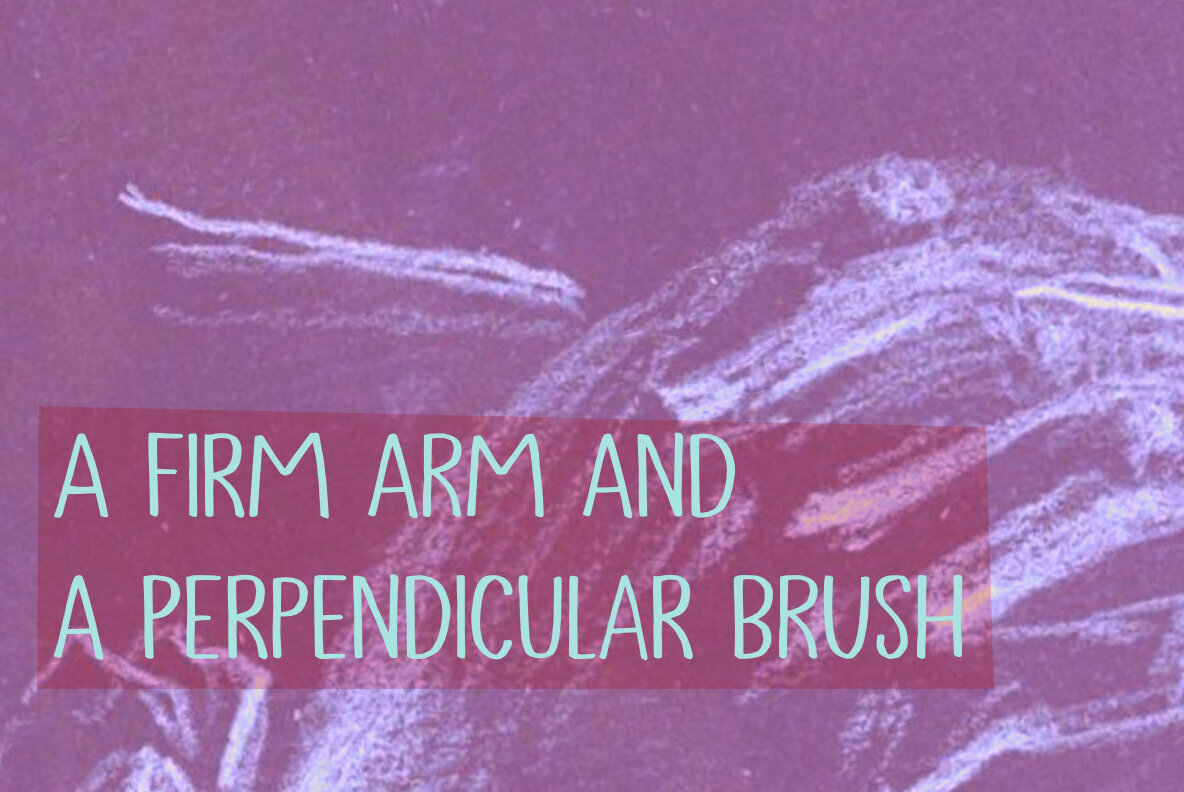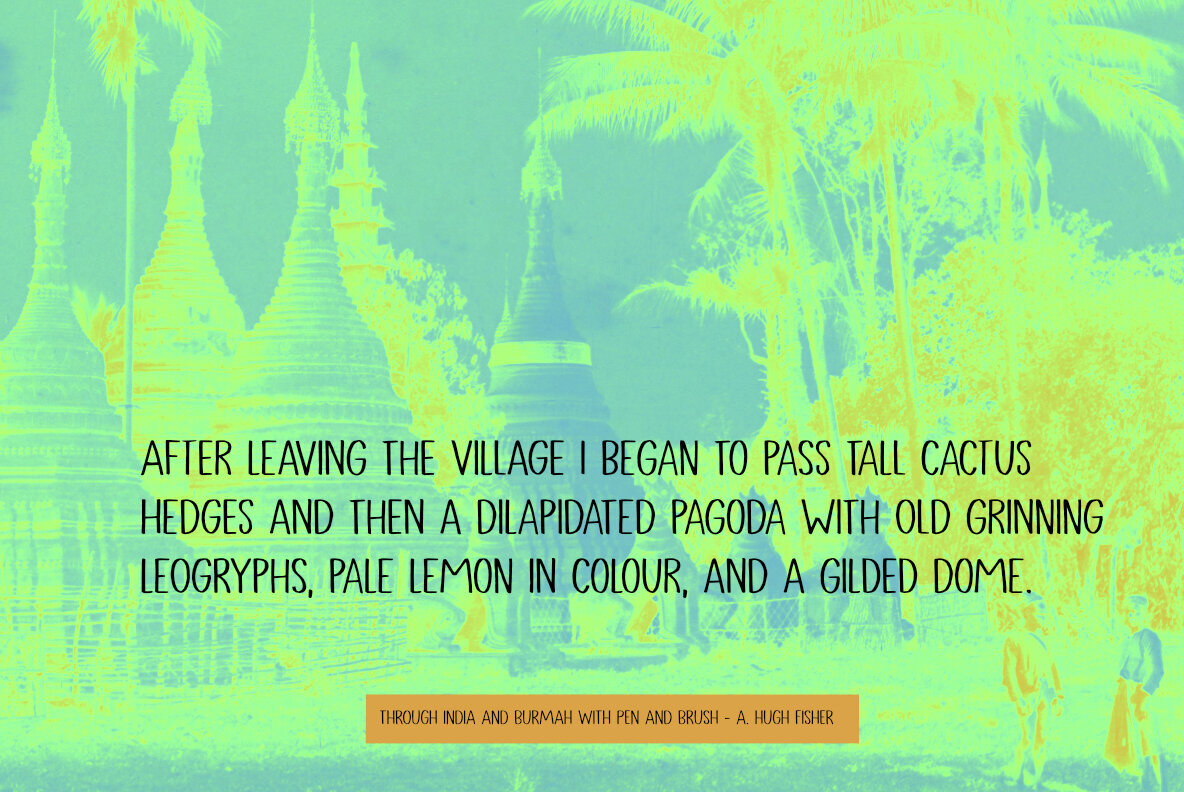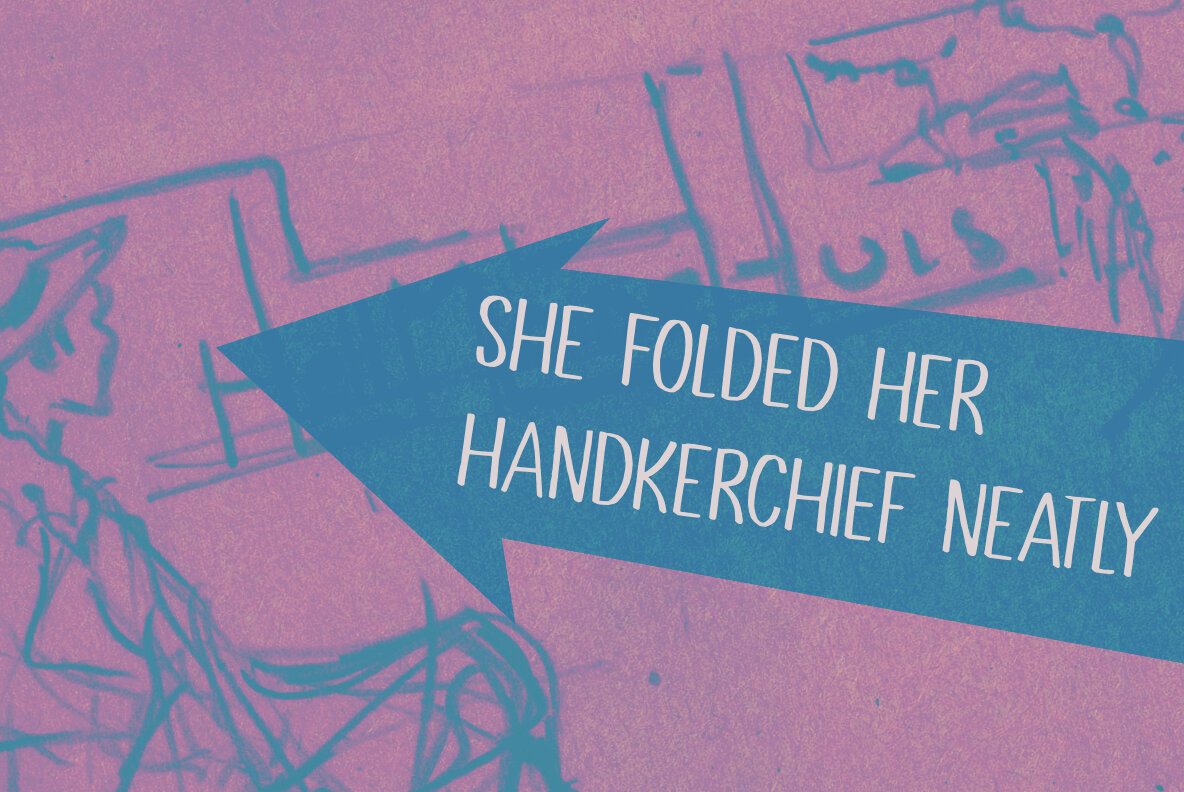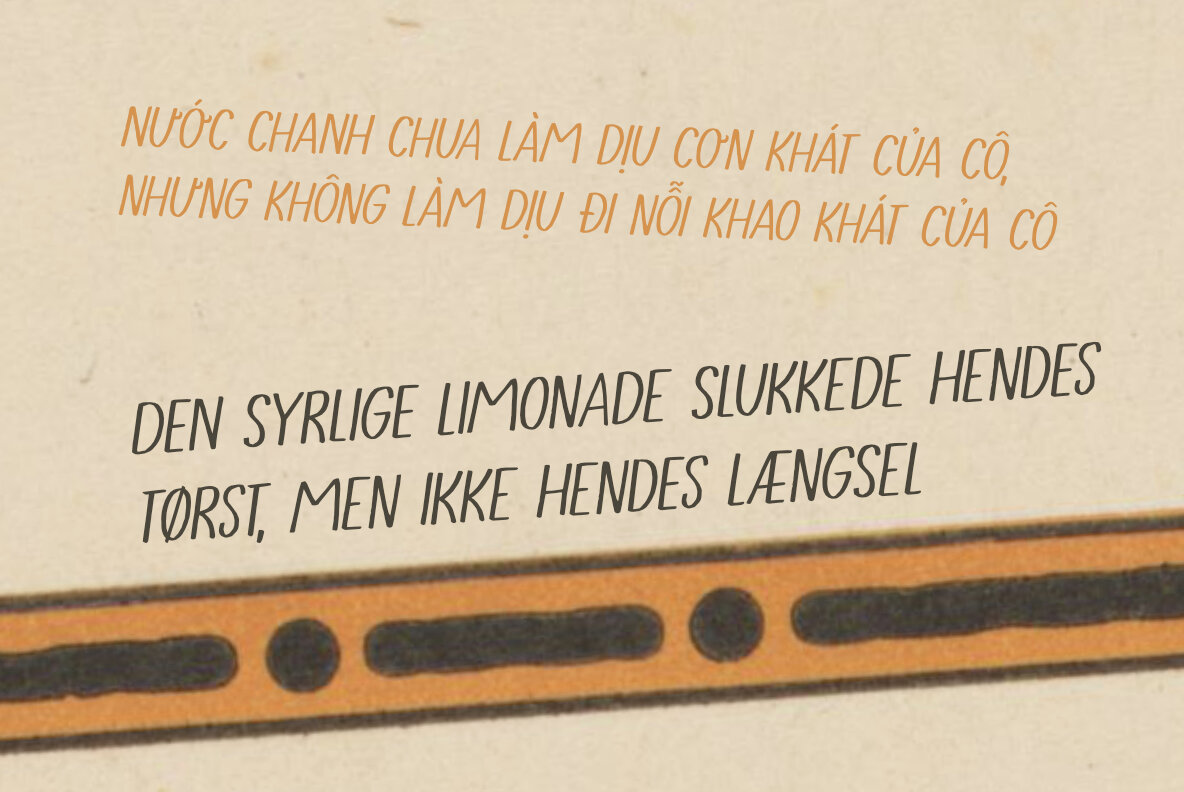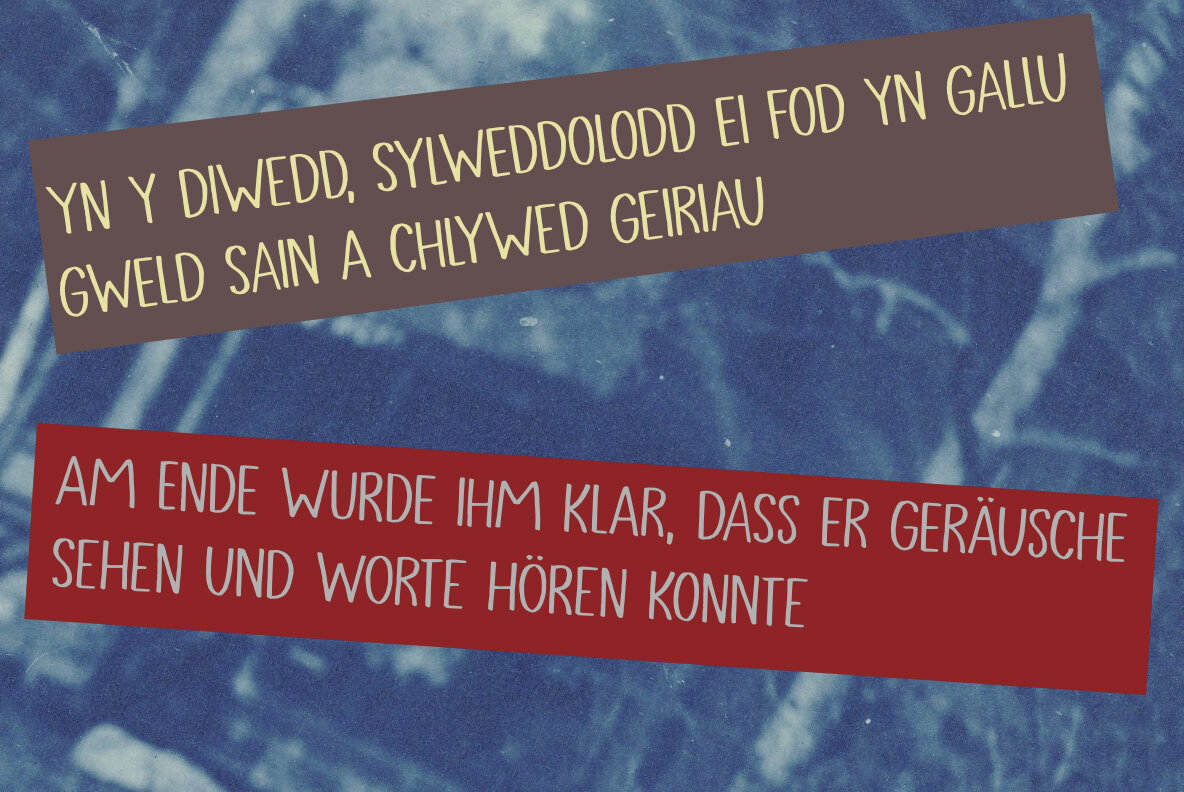
Brush Concept Font
A long time ago, I bought a pack of Japanese brush-pens. I used them for a while, but then I moved house, renovated it, sold it and moved again, so the pens got stuck in some box. A week ago I found one - by accident, I was looking for an actual brush - and decided to use if for a font. The result is Brush Concept: a nice and even, sophisticated brush font that comes with extensive language support and a set of contextual alternates.